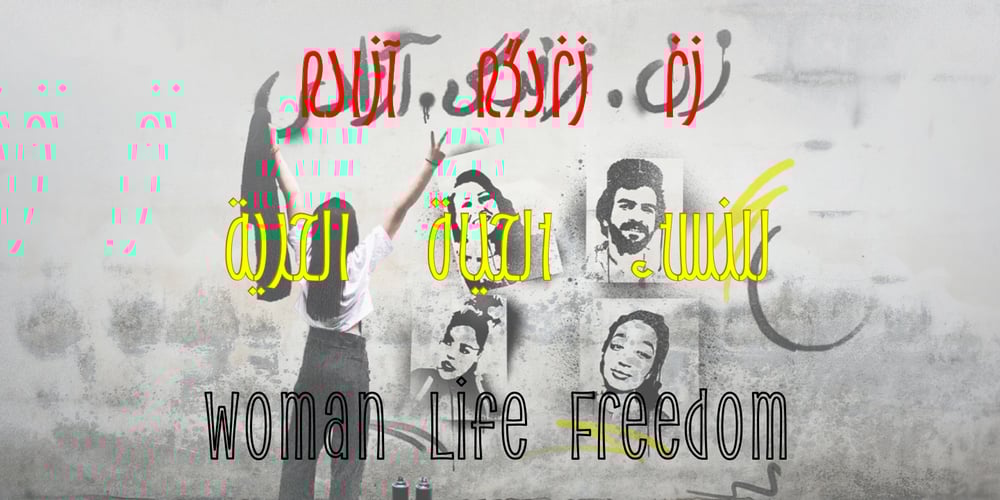
Zan font
Zan Font Family was designed by Aria Fakhari and published by Fakharia. Zan contains 4 styles and family package options. Zan (زن, Woman “stands in solidarity with the global women’s rights movement”) comprises a supportive font family tailored for the zendegi, featuring four unique styles. The initial two styles, zan regular and zan LP regular, reflect classical Arabic typefaces. In all styles, the capitalized (Isolated) letters have been modified from their traditional horizontally extended shape to a vertically extended configuration. This change has been implemented to create a visually cohesive appearance that is particularly appropriate for horizontal text composition.The zan LP (Less Point) regular is the only dot-reduced style in this font family, where glyphs with two or more dots are replaced with a new dotless shape.The zan MC (Mixed Case) regular font effectively emulates Latin typographic styles, enabling users to switch between lowercase (Initial) and uppercase (Isolated) letters via a software Caps Lock key. This software-based Caps Lock functionality may be activated or deactivated by inputting the Tatweel character. more…The final style is the All Caps (zan AC regular) version of this font family.This font family is heavily influenced by the Pickle Lime font. If you plan to use the Latin characters extensively, be mindful of the licensing rights associated with it to avoid any violations.